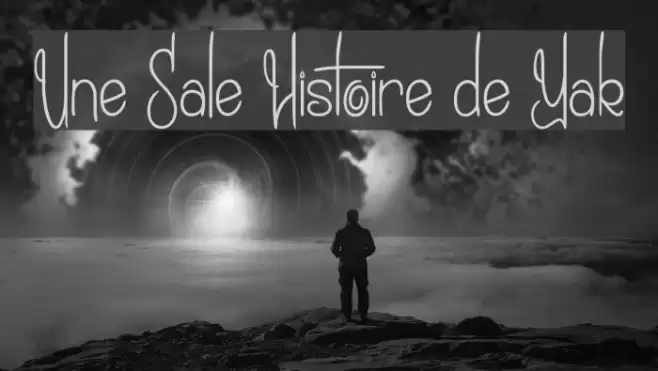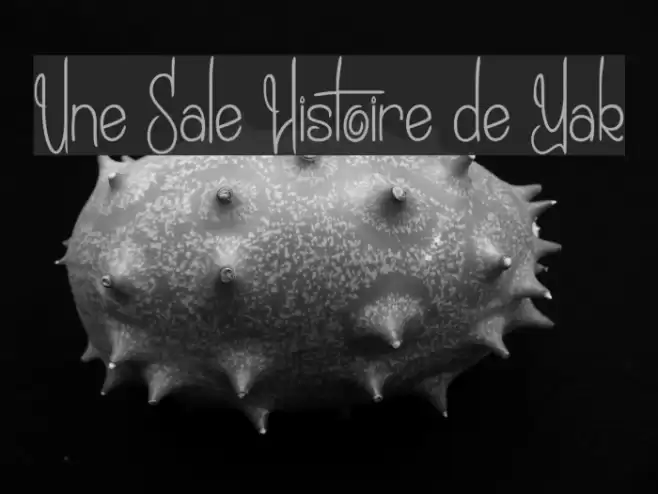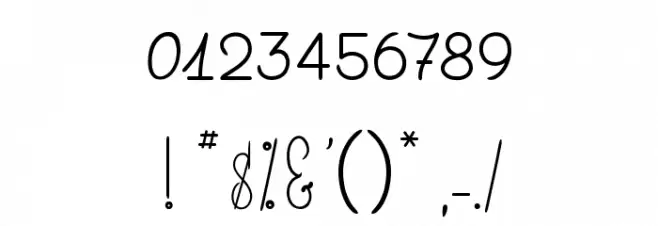
Une Sale Histoire de Yak Font
Une Sale Histoire de Yak Description
This font features an artistic and whimsical style with elongated and curvy letterforms. The uppercase letters have a playful, almost theatrical appearance, with exaggerated curves and loops that give them a unique character. The lowercase letters maintain a similar style, with a more subtle approach to the curves, creating a harmonious balance between the two cases. The numerals are consistent with the overall design, featuring rounded edges and a slightly condensed form. Special characters are creatively integrated, adding to the font's decorative appeal. This font is perfect for projects that require a touch of creativity and flair.
A whimsical and artistic font with elongated, curvy letterforms from Uncategorized fonts.
- Proposed Projects: Ideal for creative projects such as children's book covers, playful branding, and artistic posters.